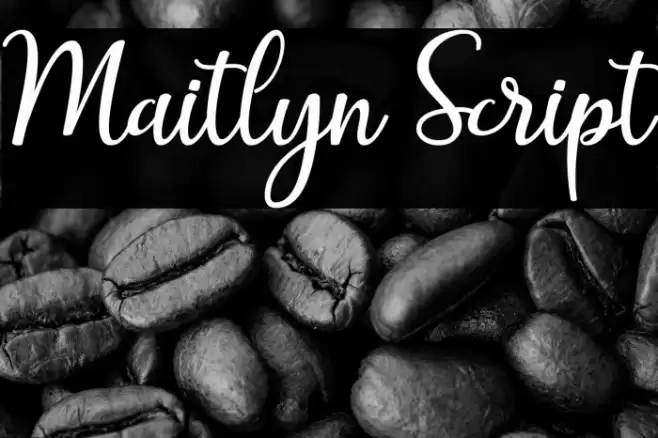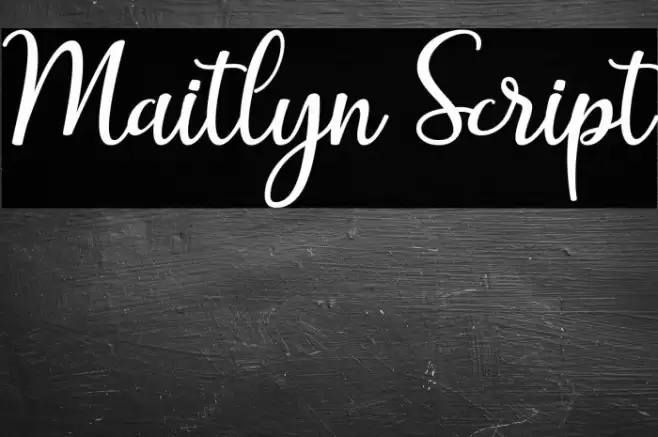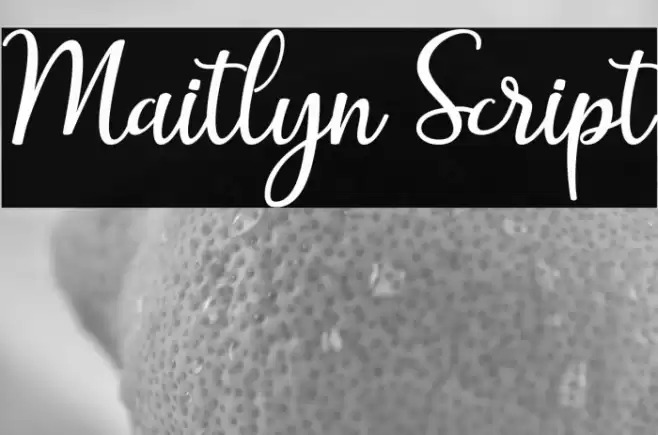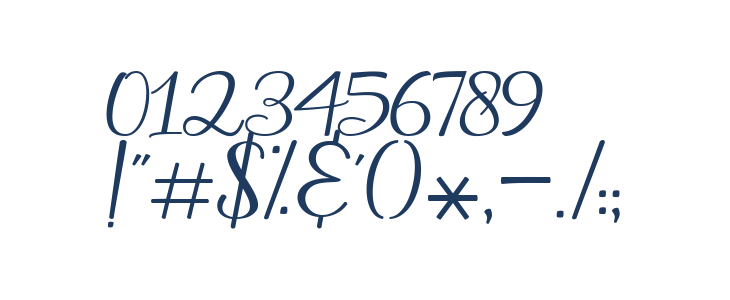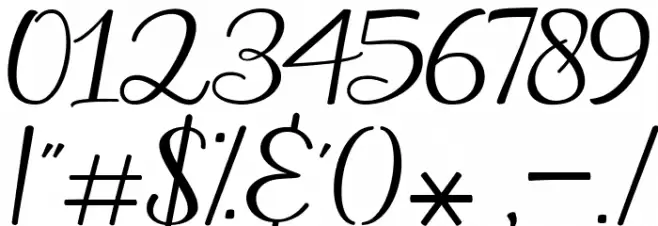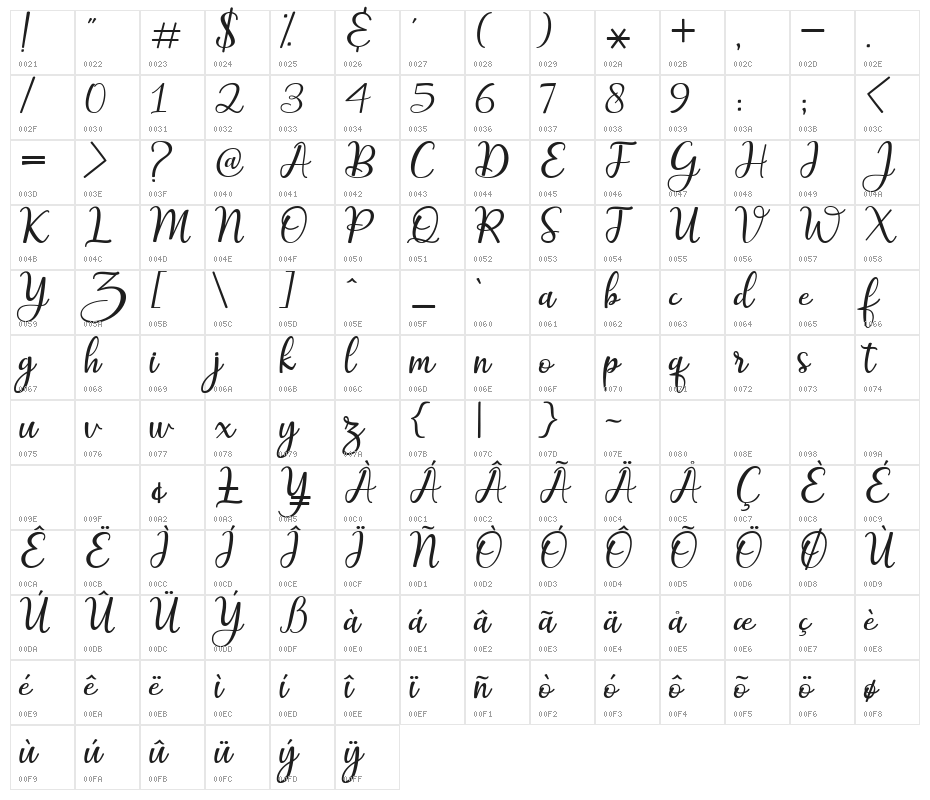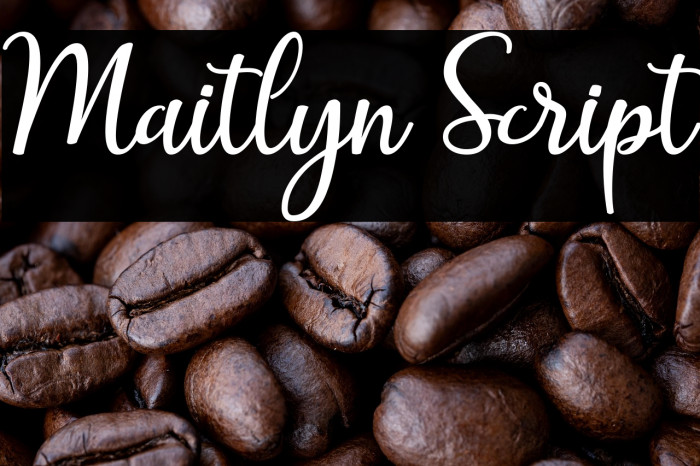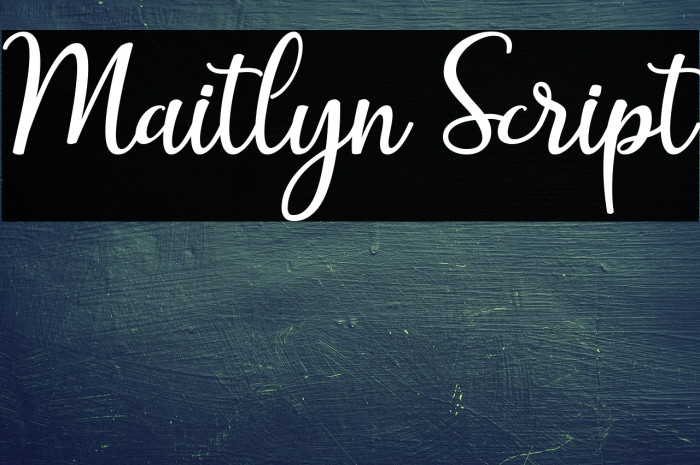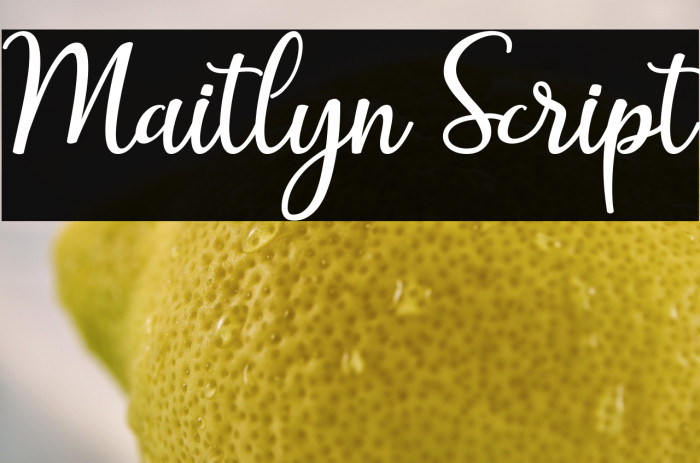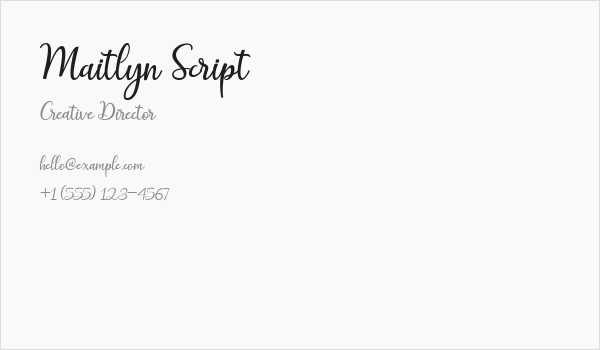
Maitlyn Script Font
Maitlyn Script Description
This elegant script font features a flowing, cursive style with smooth, interconnected letters that evoke a sense of sophistication and grace. The uppercase letters are tall and slender, with gentle curves and loops that add a touch of whimsy. The lowercase letters maintain a consistent flow, with rounded forms and delicate ascenders and descenders. The numerals are clear and legible, maintaining the script's fluidity. Special characters are thoughtfully designed to complement the overall aesthetic, making this font suitable for a variety of creative applications.
A graceful and elegant script font with flowing, interconnected letters from Regular fonts.
- Proposed Projects: Ideal for wedding invitations, elegant branding, personal stationery, and decorative signage.
- Overall Style: Elegant, Sophisticated
- Use Case: Logos, Invitations, Decorative Text